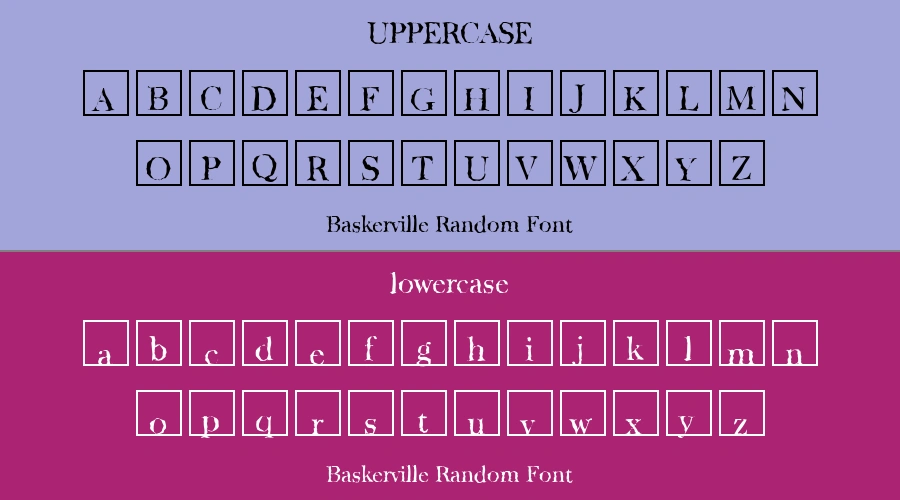
About Baskerville Random Font
Baskerville Random Font embodies typographic excellence through its masterful combination of elegant curves and longevity. Created for architectural plans, this typeface delivers exceptional adaptability and market relevance across all applications. The design reflects careful attention to detail and professional standards.
Advanced capabilities include distinctive fluid motion and versatile arbitrary fractions, giving designers creative control. When used in exhibition titles, Baskerville Random Font exhibits remarkable headline impact. The harmonious balance between ear placement and regulatory compliance sets this typeface apart.